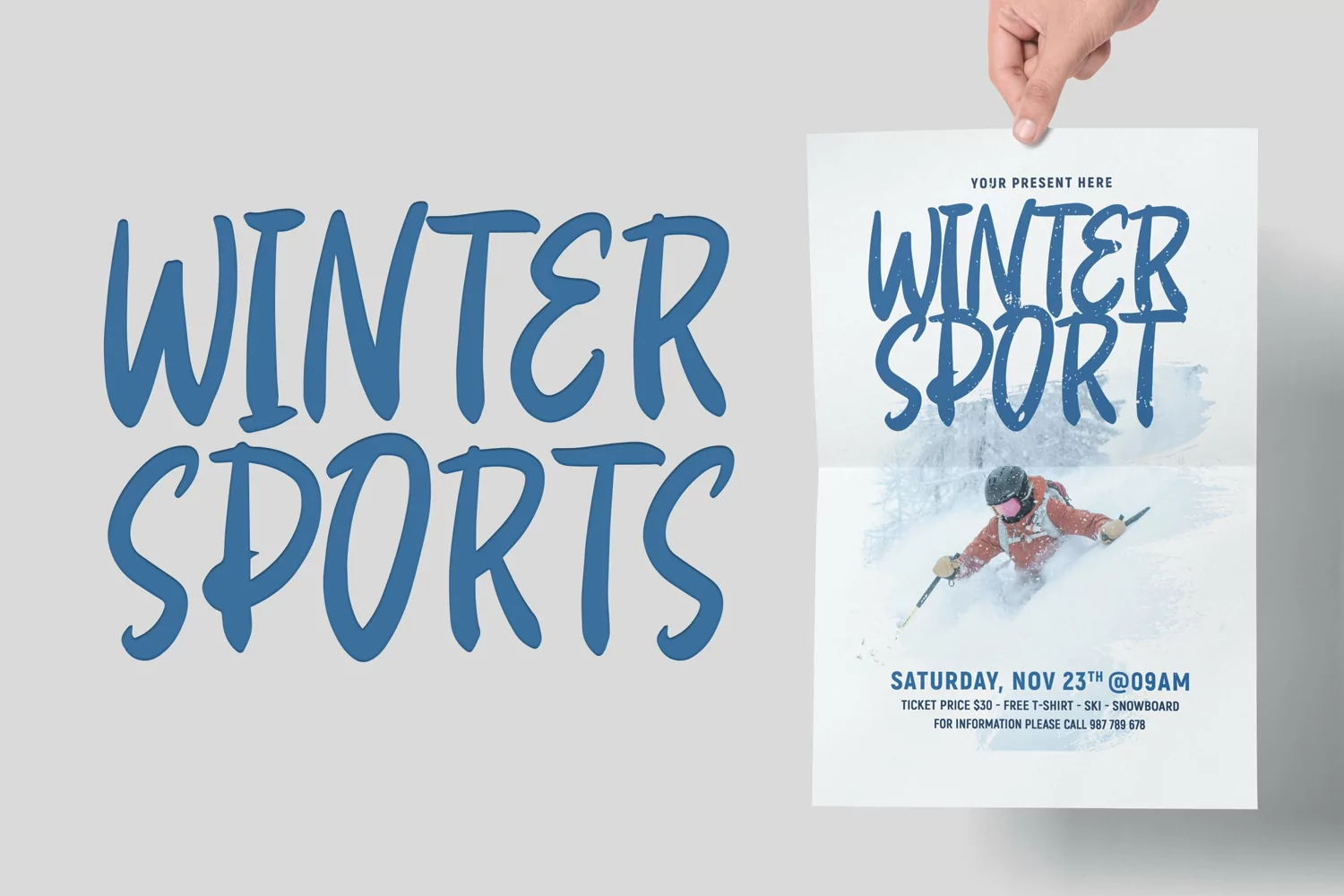
Snowbell - Script Font that contain lowercase, uppercase, symbol, and also support multi language. There’s a lot ligatures in this font. This Font also comes with ligatures, alternates and many more. this font suitable for fashion, branding, catalog and other design what you want.